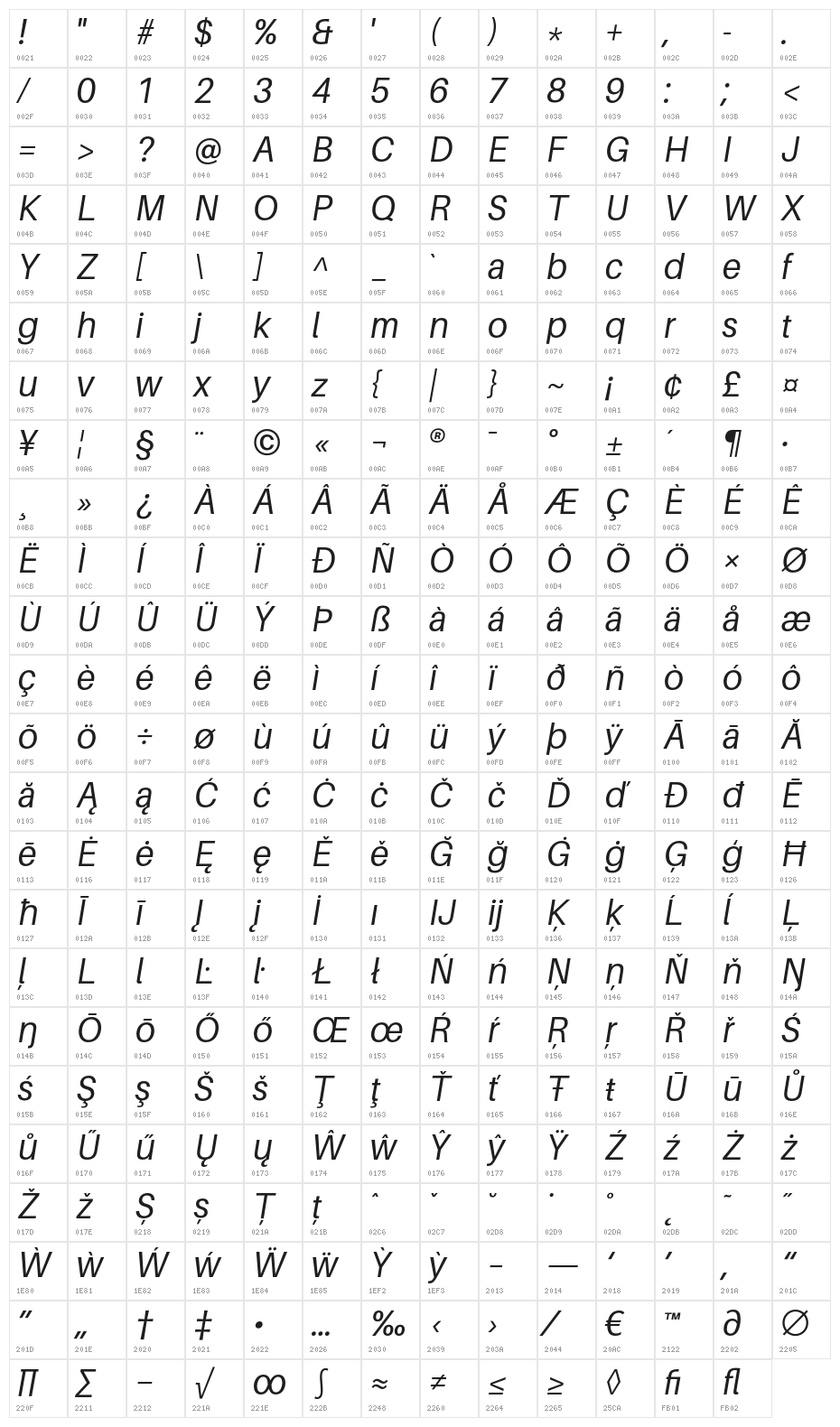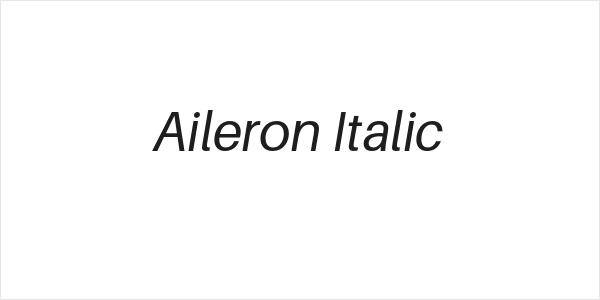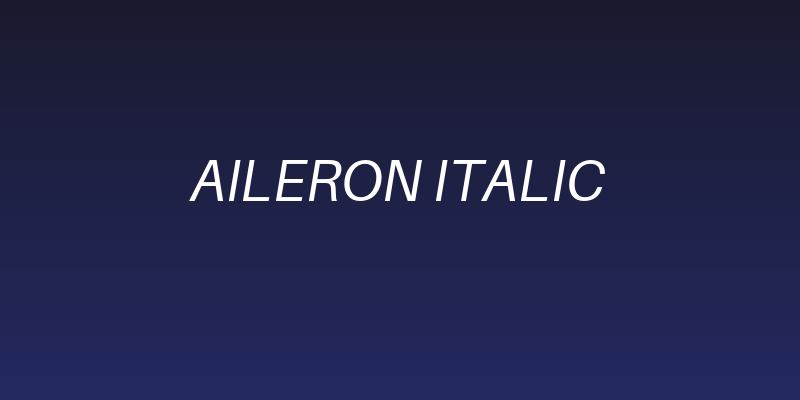
Aileron Italic Font
Aileron Italic Description
This font exhibits a sleek and modern design with a slight italic slant, giving it a dynamic and forward-moving appearance. The characters are clean and well-defined, with a uniform stroke width that maintains readability across various sizes. The uppercase letters are tall and commanding, while the lowercase letters are more rounded and approachable. Numbers are clear and distinct, making them suitable for both display and text settings. Special characters are elegantly integrated, maintaining the overall aesthetic of the font.